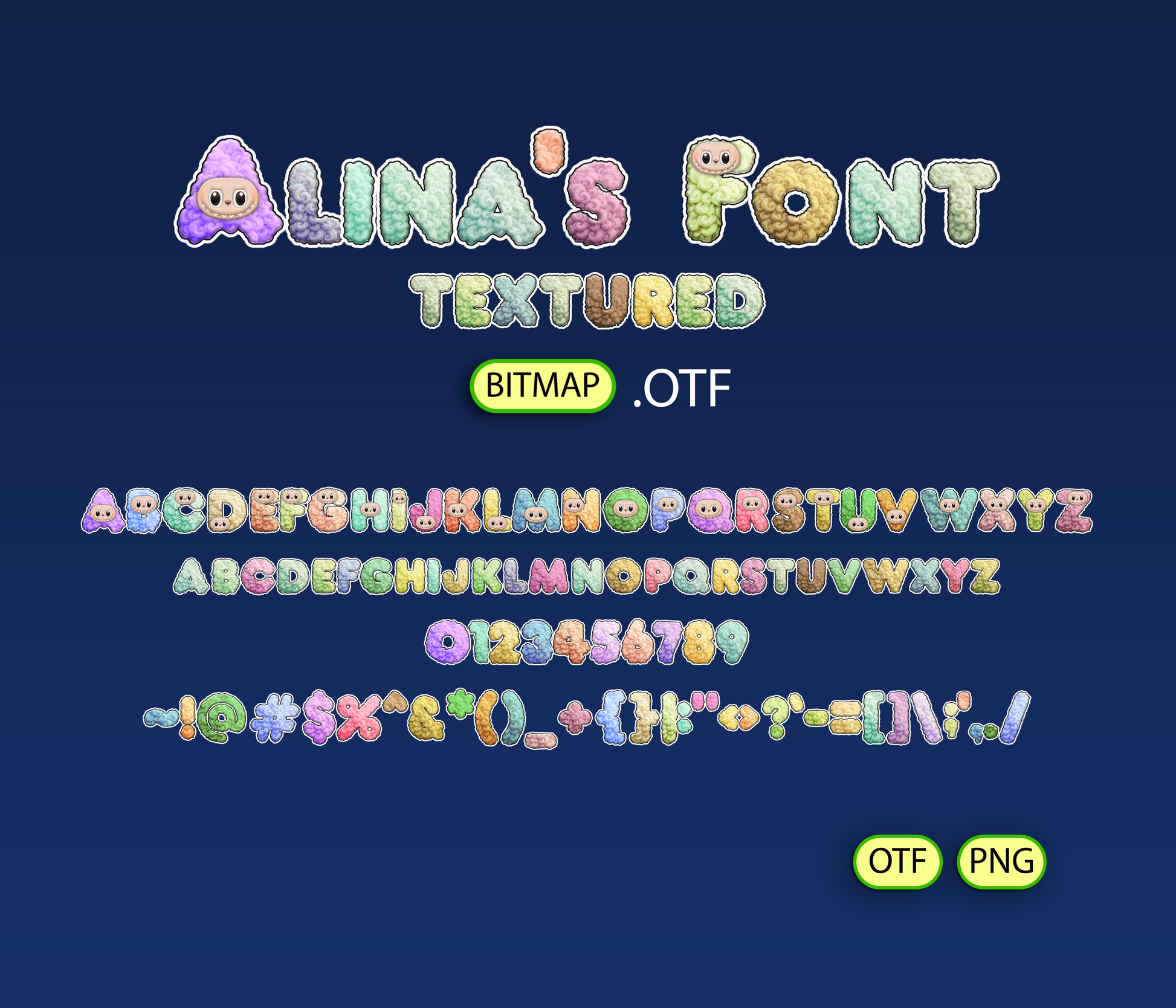
Quirky Companion Designer Toy Style Font Textured
Quirky Companion Font Designer Toy Style
Dive into the enchanting universe of artistic collectibles with our Quirky Companion font, embodying the essence of whimsical character design and contemporary toy artistry. Tailored for collectible enthusiasts, kawaii brand specialists, pop culture event organizers, and cute aesthetic developers, this font delivers the sweet, mischievous energy of beloved designer figures to your creative ventures. Craft captivating product launches, collector community materials, or charming digital experiences with the playful, artistic spirit of modern plush phenomenon.
Our Quirky Companion font showcases bubble-like, friendly letterforms and endearing personality that captures the lovable yet edgy aesthetic of contemporary character collectibles and artistic toy design. Excellent for:
- Toy Exhibitions: Design memorable display materials, artist showcase banners, and limited edition launch announcements for designer collectible showcases
- Cute Branding: Outstanding for character-based businesses, kawaii cafes, and adorable product packaging that celebrates contemporary cuteness culture
- Social Content: Elevate collector Instagram accounts, toy review channels, and community forums with headers that evoke playful sophistication
- Artistic Events: Enhance gallery openings, pop-up shops, and creative market branding with authentic designer toy charm
- Hobby Projects: Add collectible magic to display cases, photo backdrops, and handmade items inspired by the aesthetics of modern plush artistry